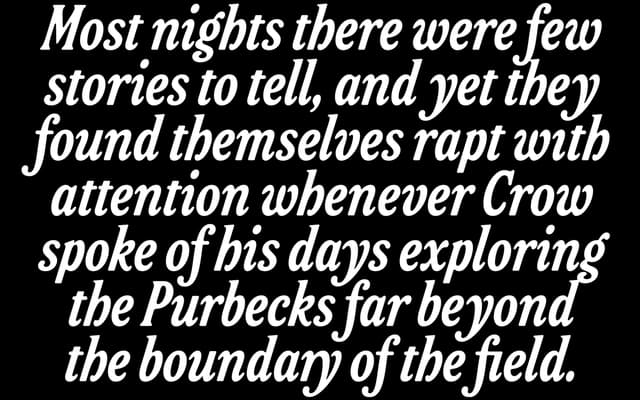
Friend Italic
A standalone italic serif from Beasts of England, sold at a single weight and priced for individual or small-team licensing.
Friend Italic is offered as a single italic cut from the small British foundry Beasts of England. The page presents no upright companion, positioning this as an independent italic rather than a supplementary style. Licensing is tiered from one to ten or more users, with the entry price set at $30.
Classified as an italic serif based on the name and its positioning as a standalone italic typeface; the page presents only this italic cut without reference to an upright companion.